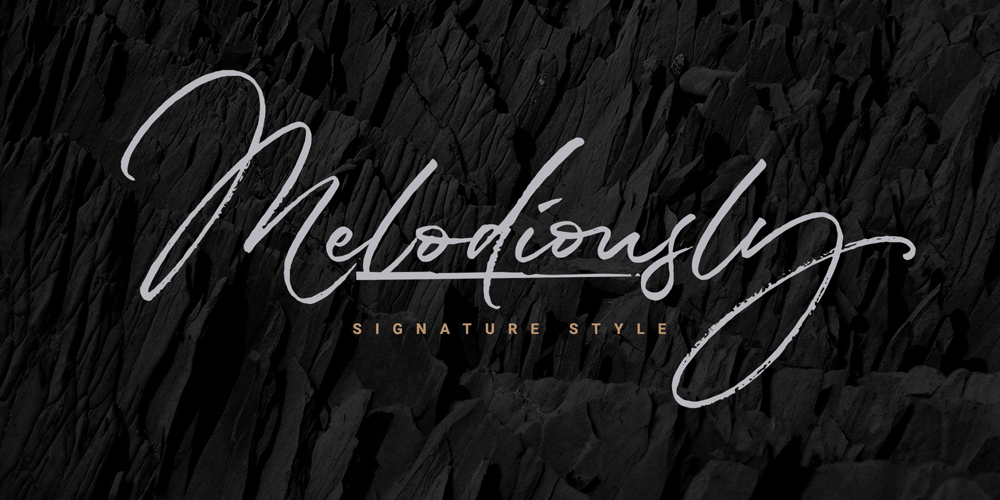
Melodiously Font Family was designed by Hermansyah and published by Get Studio. Melodiously contains 1 styles and family package options. Melodiously Script is handwritten signature style font with stunning brush characters. Include OpenType alternates and common ligatures. Ideal for logos, name tag, handwritten quotes, product packaging, merchandise, social media & greeting cards.Try the alternates and ligatures to give your designs looks good, fresh, casual, stylish, and modern.